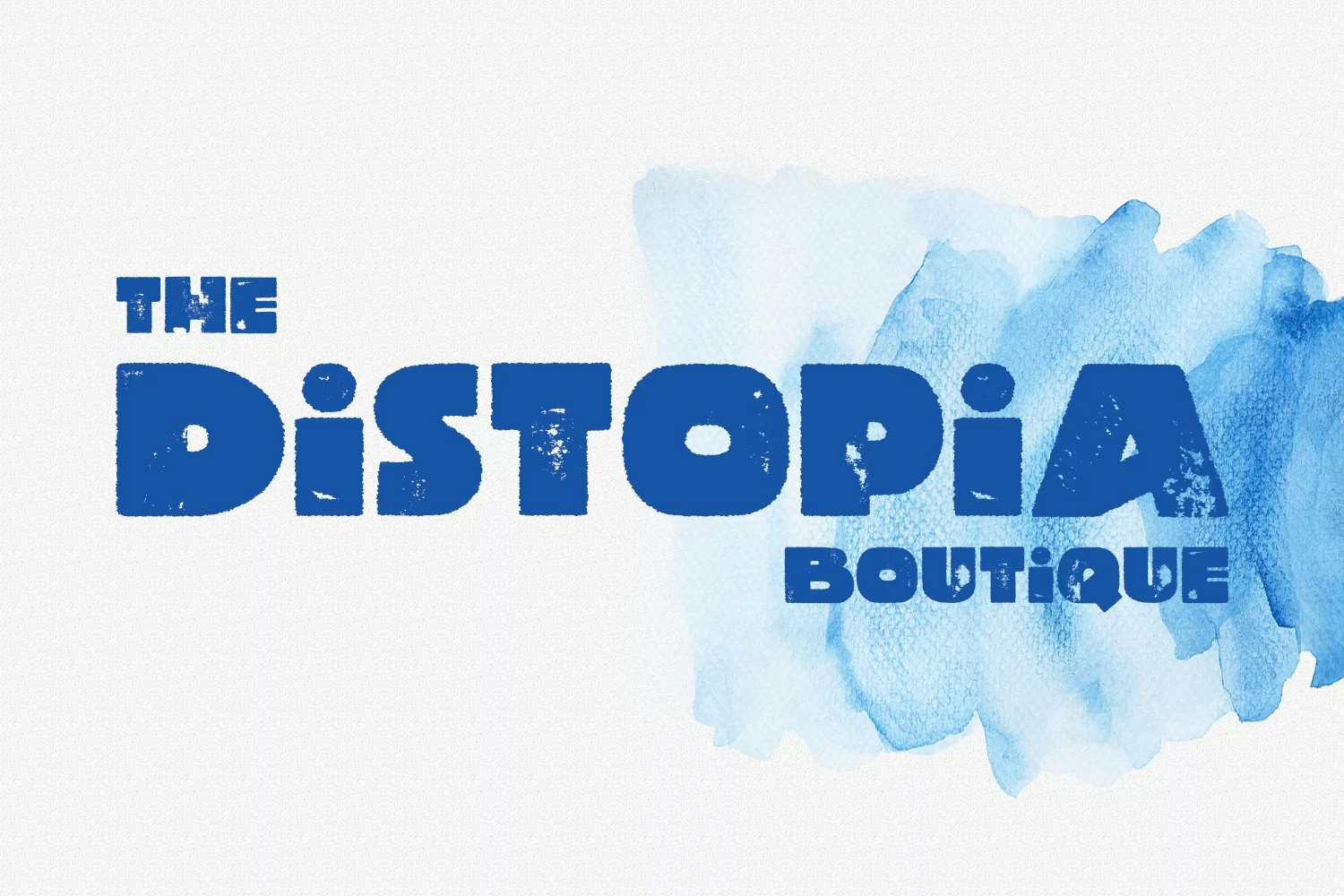
Honner is a stamp distressed sans serif display font. With bold stroke, fun character with a bit of ligatures. To give you an extra creative work. Honner font support multilingual more than 100+ language. This font is good for logo design, Social media, Movie Titles, Books Titles, a short text even a long text letter and good for your secondary text font with sans or serif. Make a stunning work with Honner font.